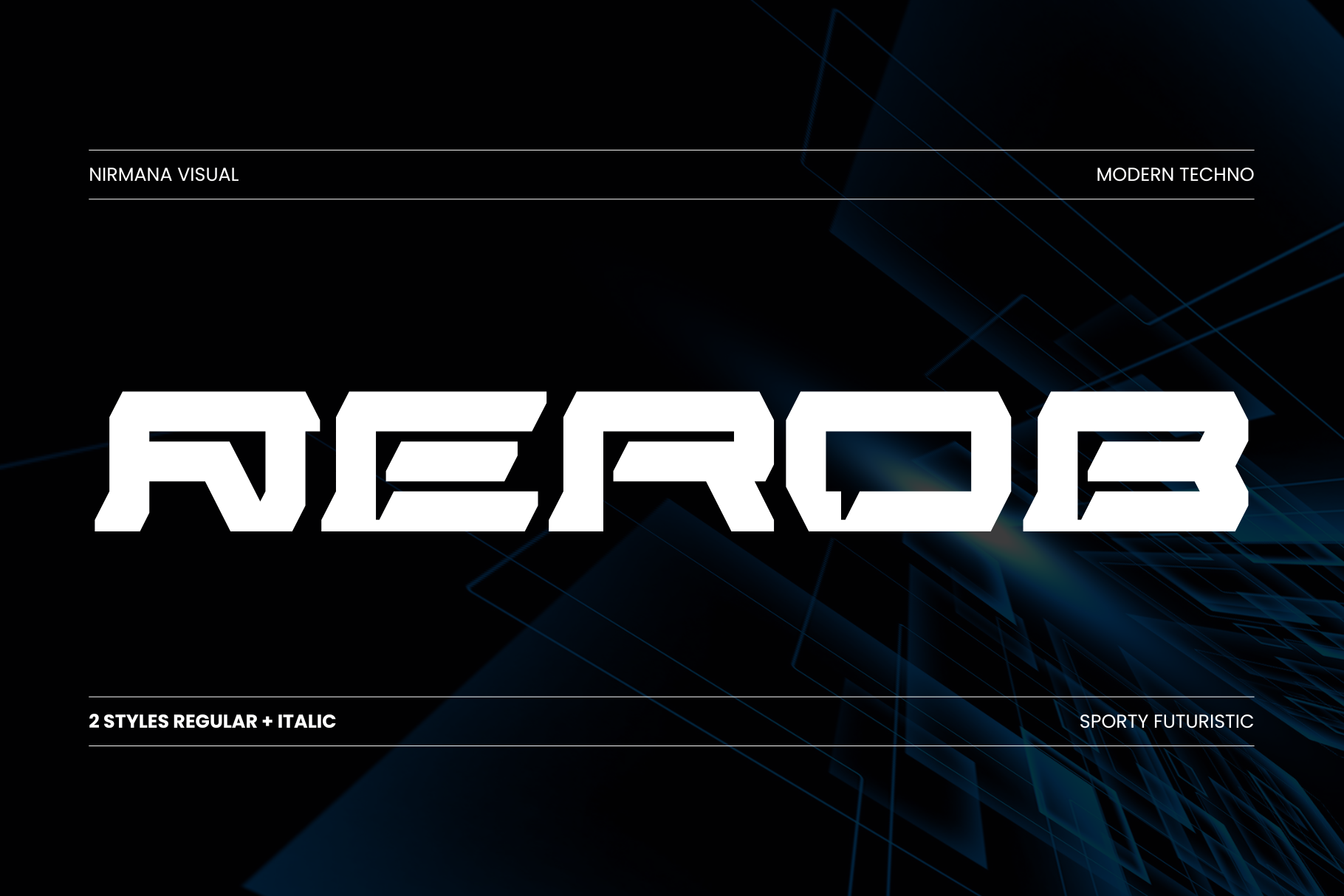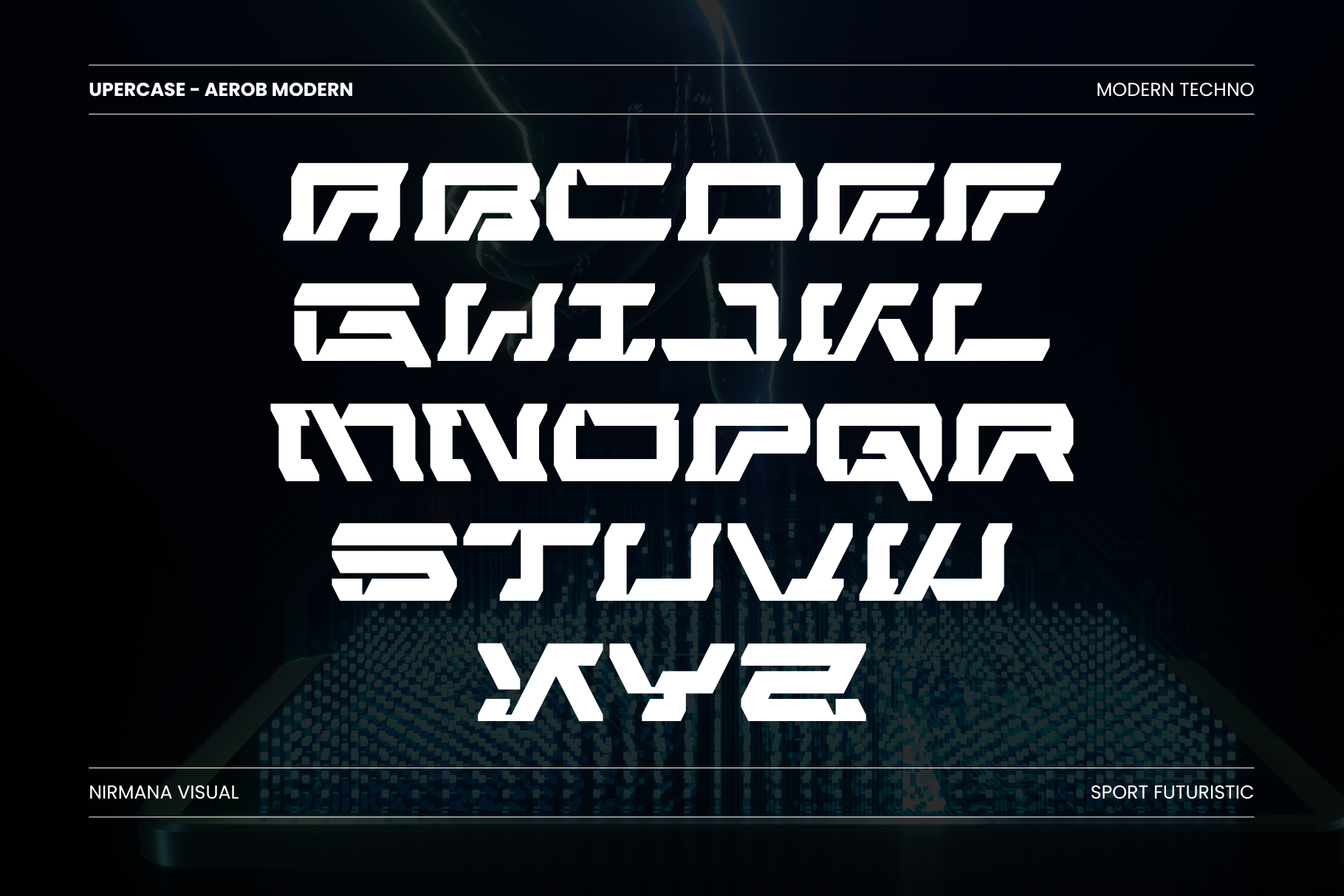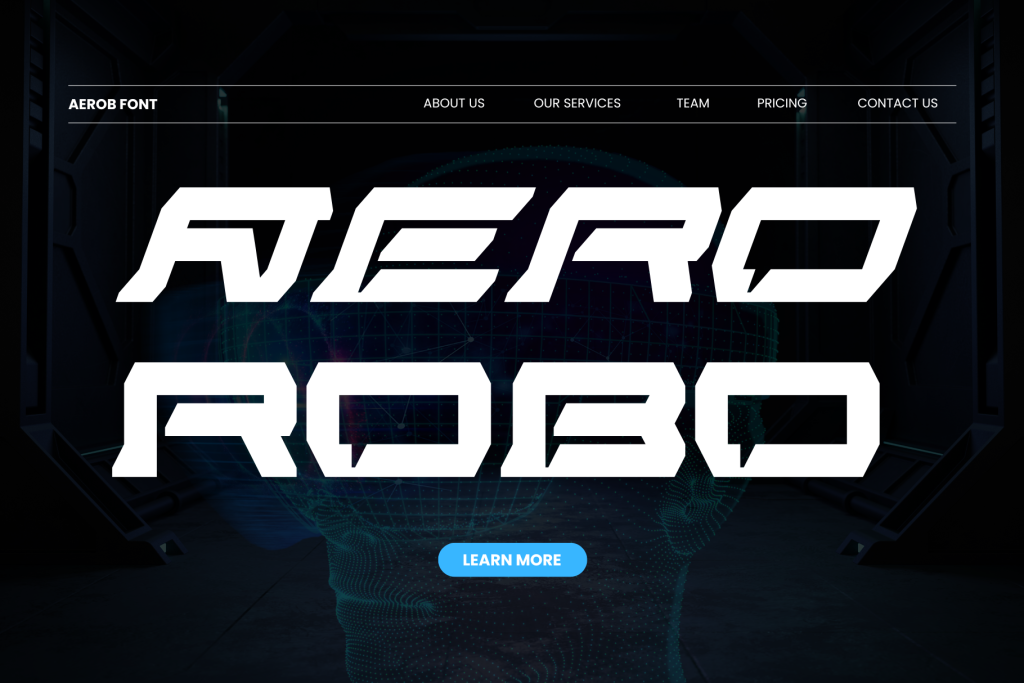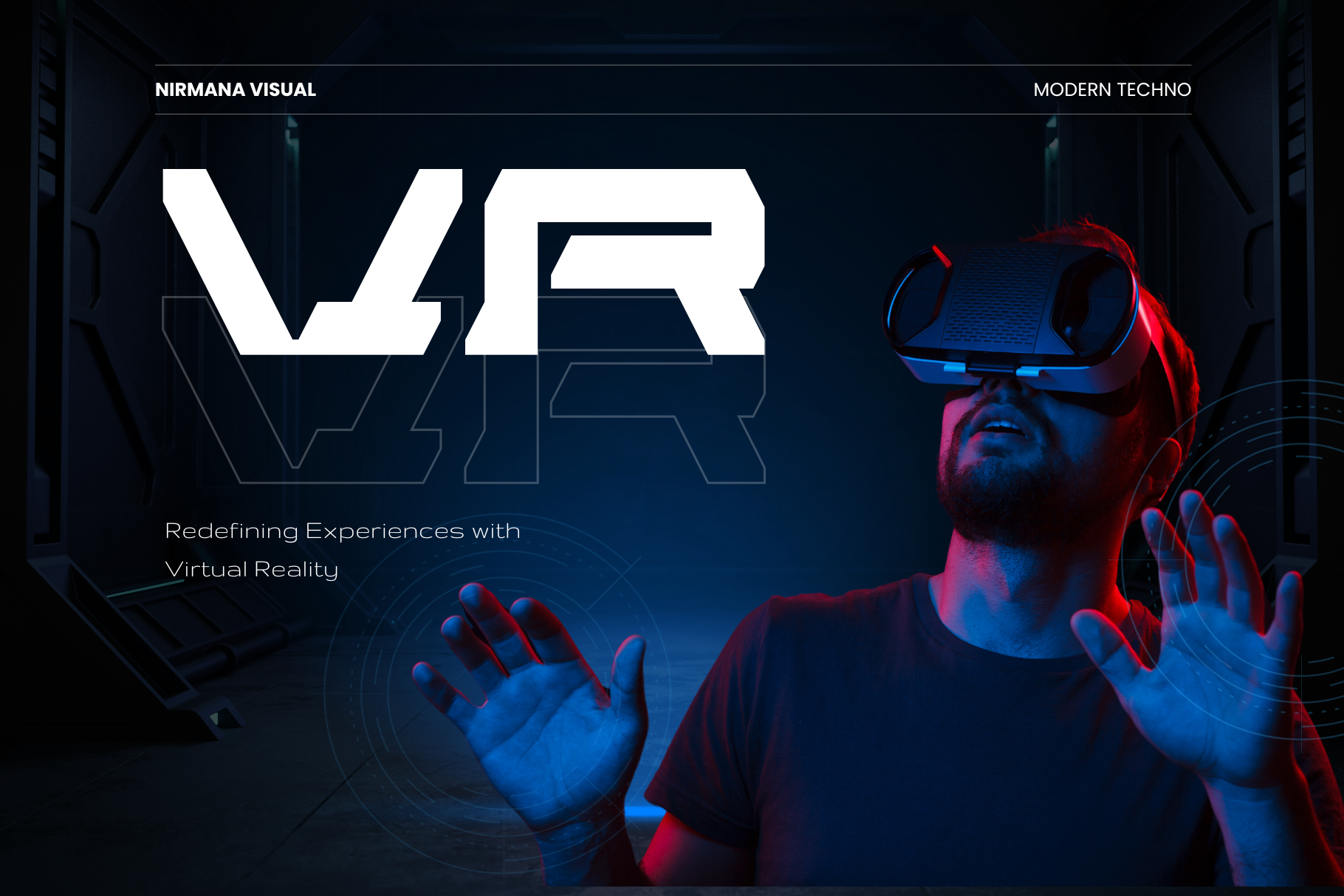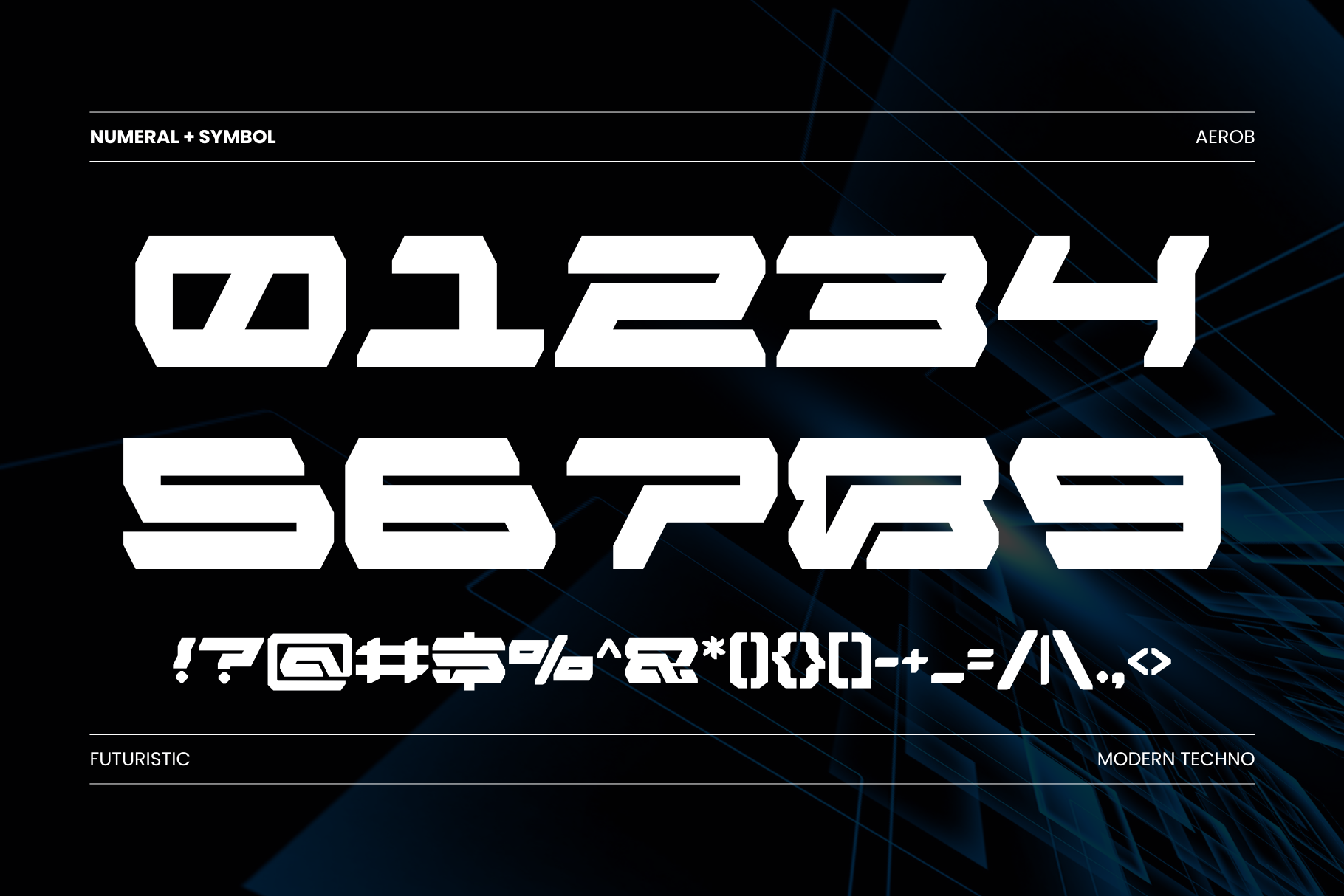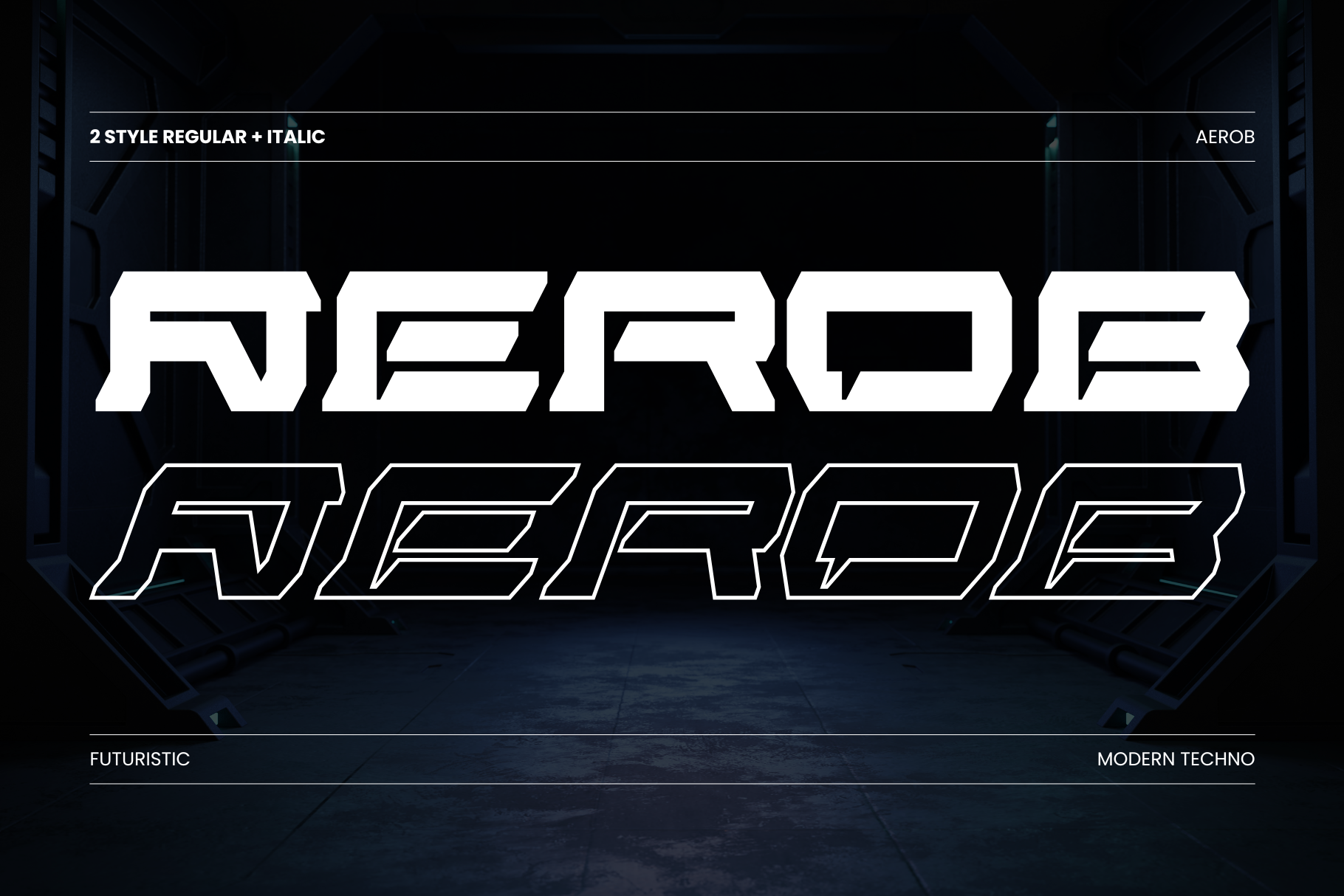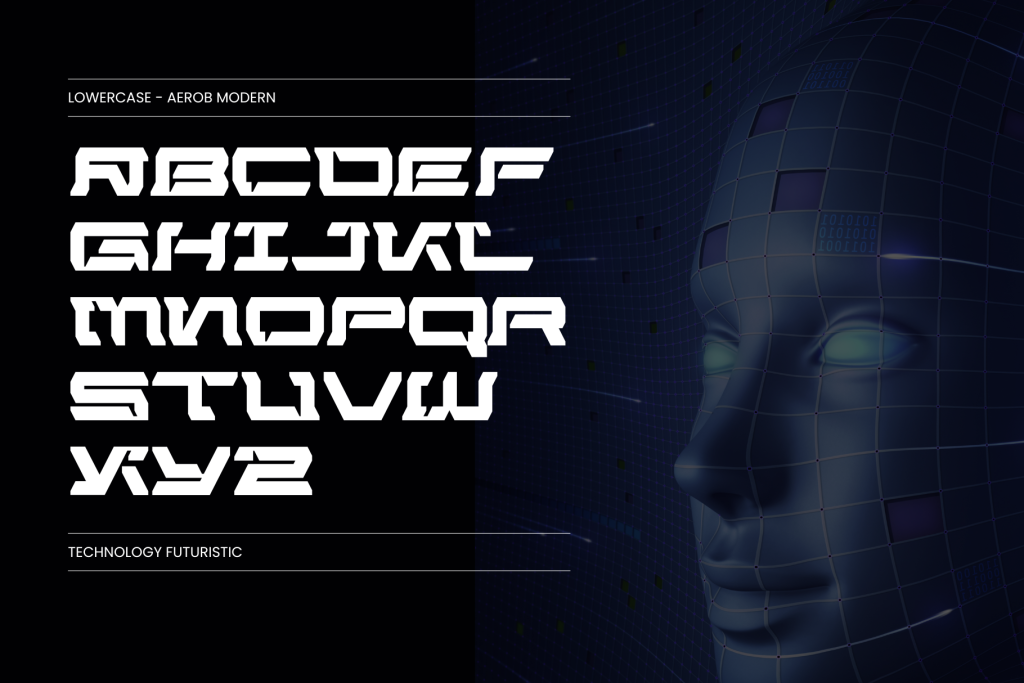
Modern Aerob is a cutting-edge techno font designed for impactful logos and bold headlines. Featuring both Regular and Italic styles, it combines sharp angles with futuristic flair to create a powerful visual identity. Ideal for tech brands, sci-fi themes, and digital media, Modern Aerob delivers a sleek, high-energy look. Its modern structure and dynamic style make it perfect for standing out in contemporary and innovation-driven designs.